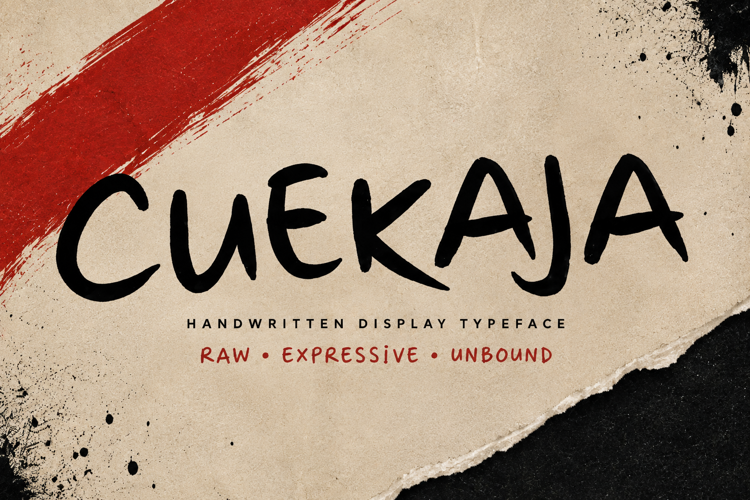
Cuekaja Font
Cuekaja - Bold handwritten display font with raw, expressive strokes.
Cuekaja Handwritten Display Font - Raw, Expressive, Unbound Typography
Break free from conventional design with Cuekaja, a bold handwritten display typeface that captures authentic human expression through raw, unfiltered brush strokes. This premium font combines organic handwriting with rebellious energy, making it perfect for brands and projects that refuse to blend in.